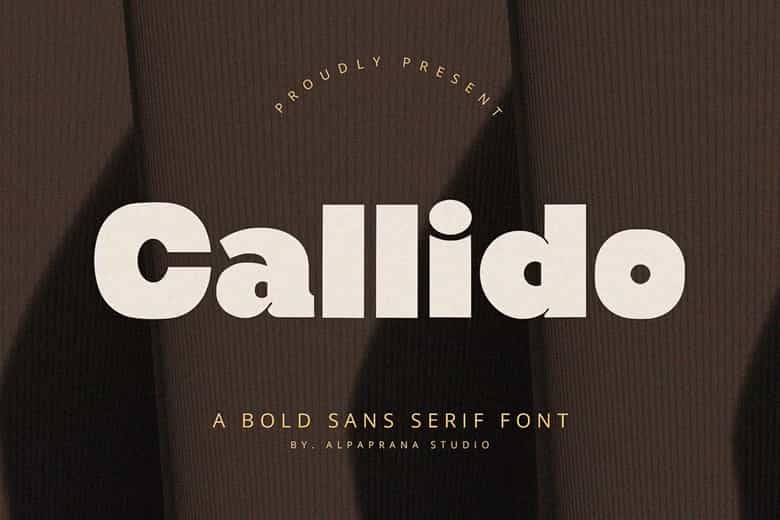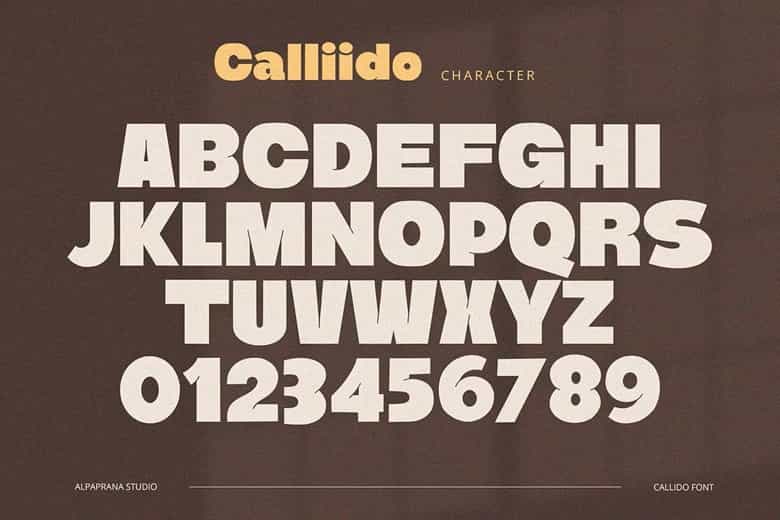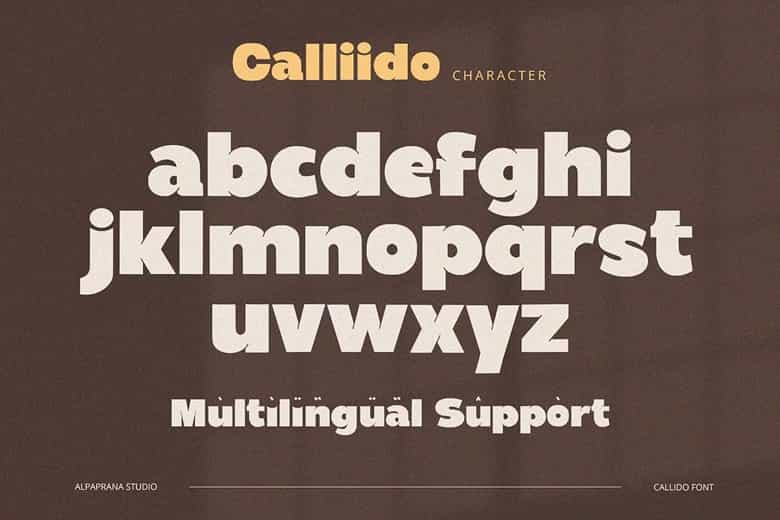
Discover Callido Font, part of the Sans Serif Display collection—a versatile and unique font perfect for adding a personal touch to your projects. Download it for free and enjoy crafting designs with style, from invitations to social media posts. This font is available exclusively for personal use, giving you the freedom to create without limits. Unlock your creativity with Callido Font today!
Callido has a simple design that looks both elegant and modern. A graphic design can enhance your Branding, Logo Design, Lettering, Logotype, Clothing, Poster, magazine, packaging, posters, shopping bags, t-shirts, book covers, photography, special events and a range of additional design projects.